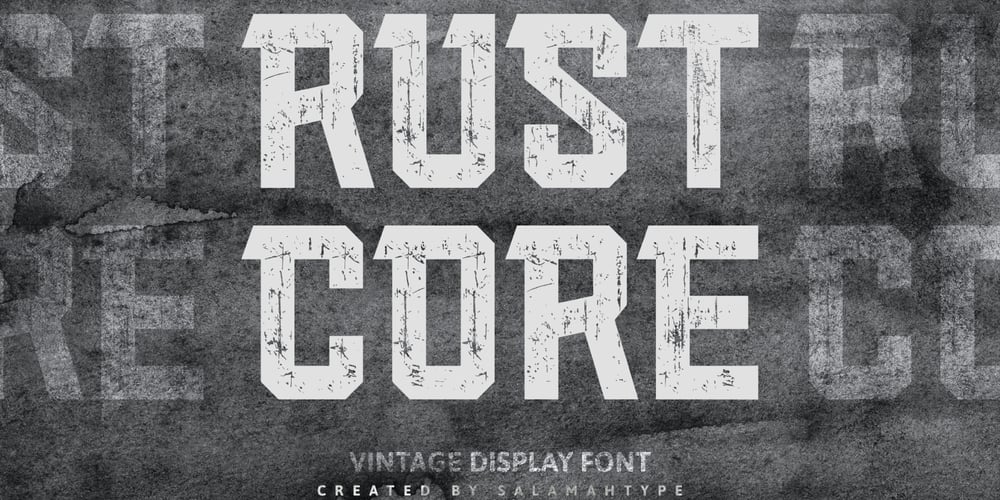
Rust Core
Rust Core font
Rust Core Font Family was designed by Aswangga Sadike and published by Salamahtype. Rust Core contains 4 styles and family package options. Introducing our font called “RUST CORE” – display font with 4 styles included (Clean and Stamp/Textured). Perfect for branding projects, logos, labels and more. With texture like rust core, will make your design, product, logo or label more cool, unique and meaningful.Font: All caps characters (4 styles) Numbers, symbols, and punctuation Multilingual support Enjoy our cool font! Thank you.